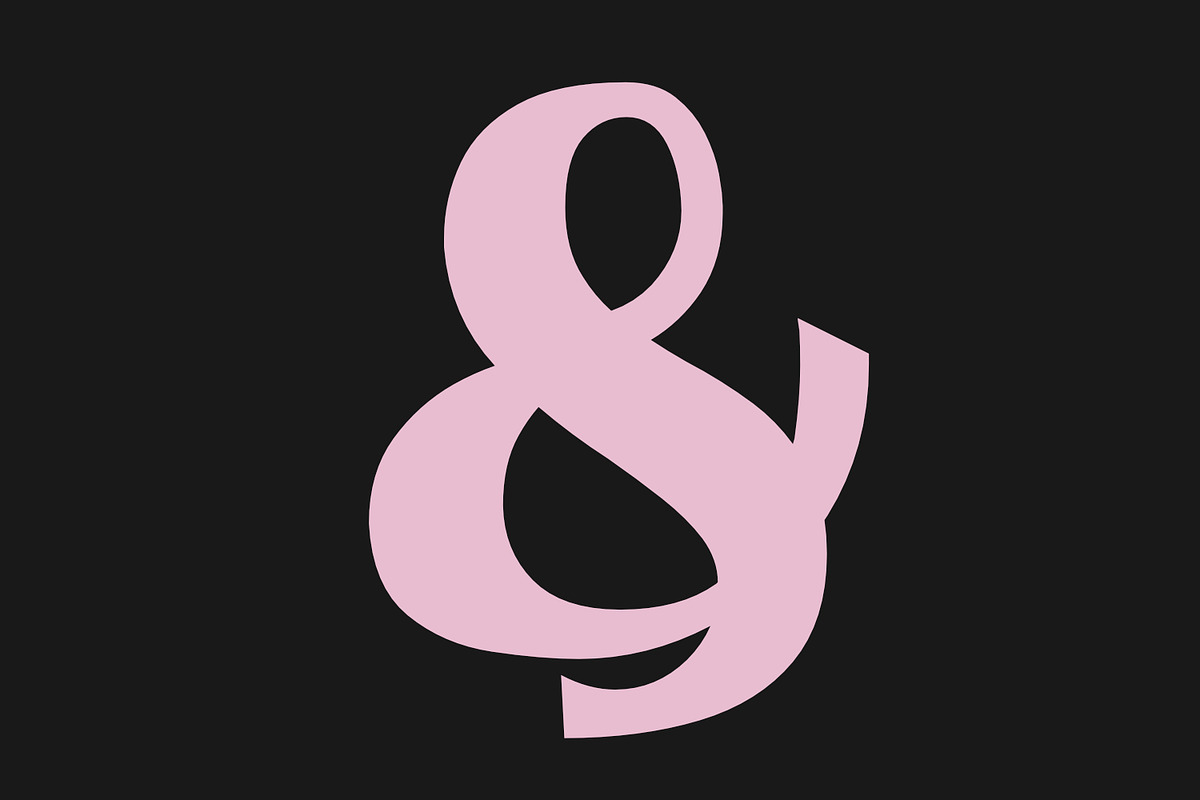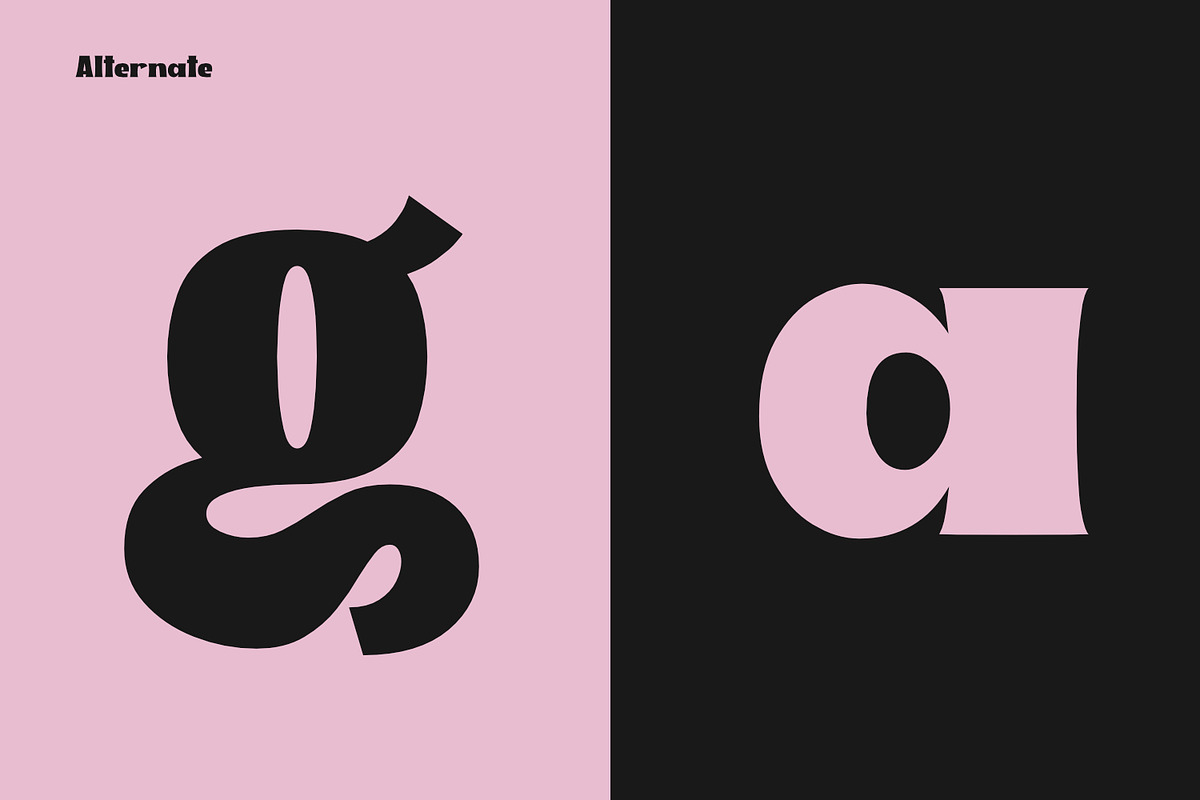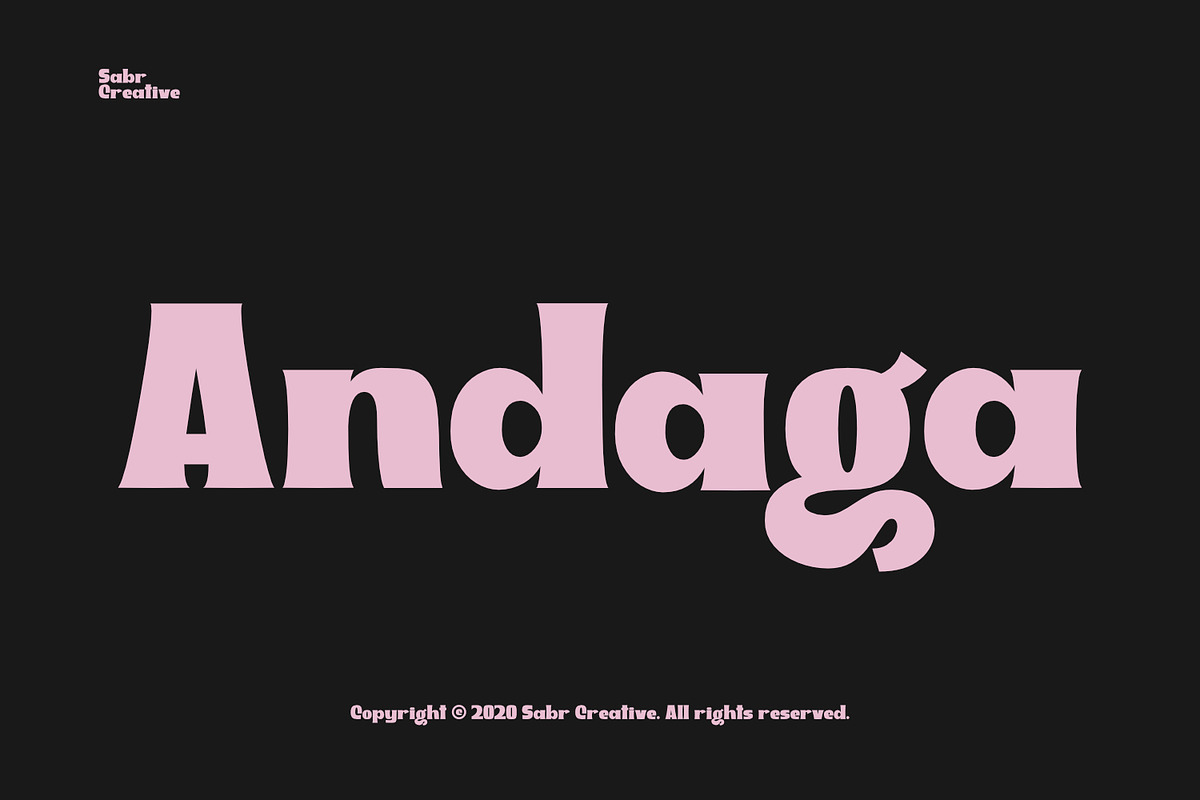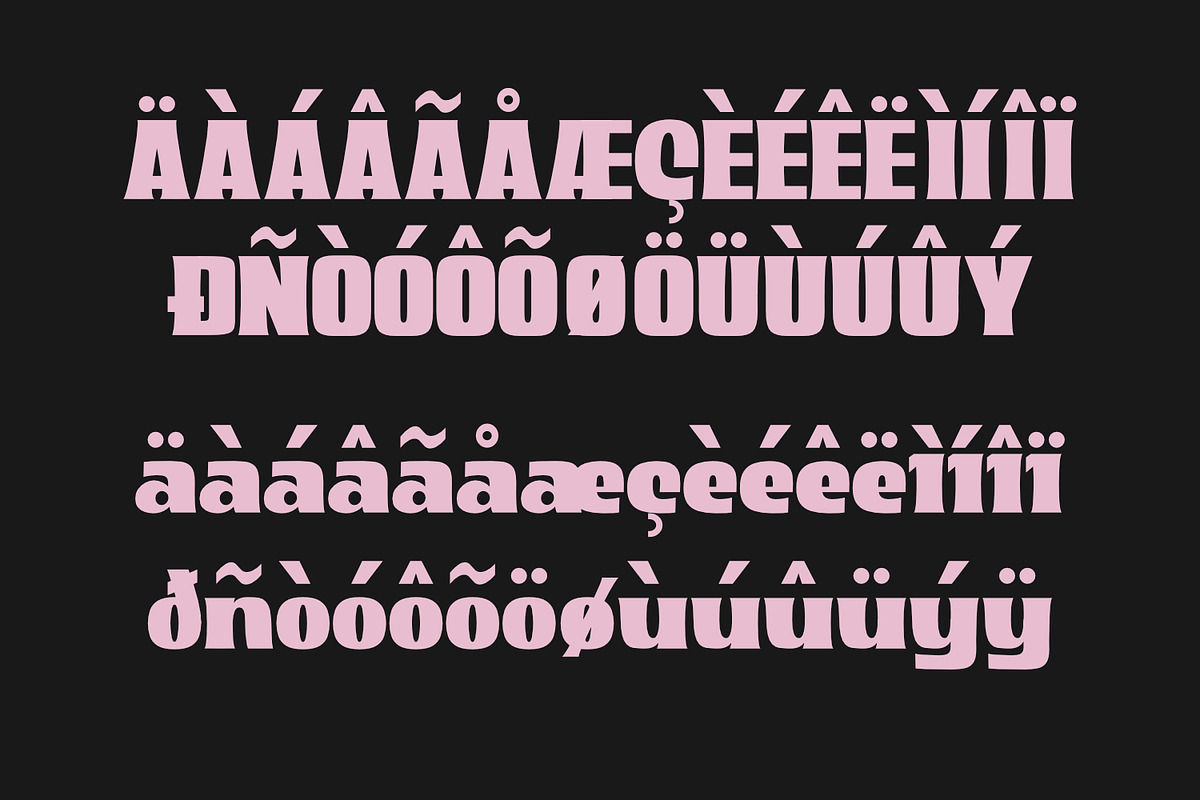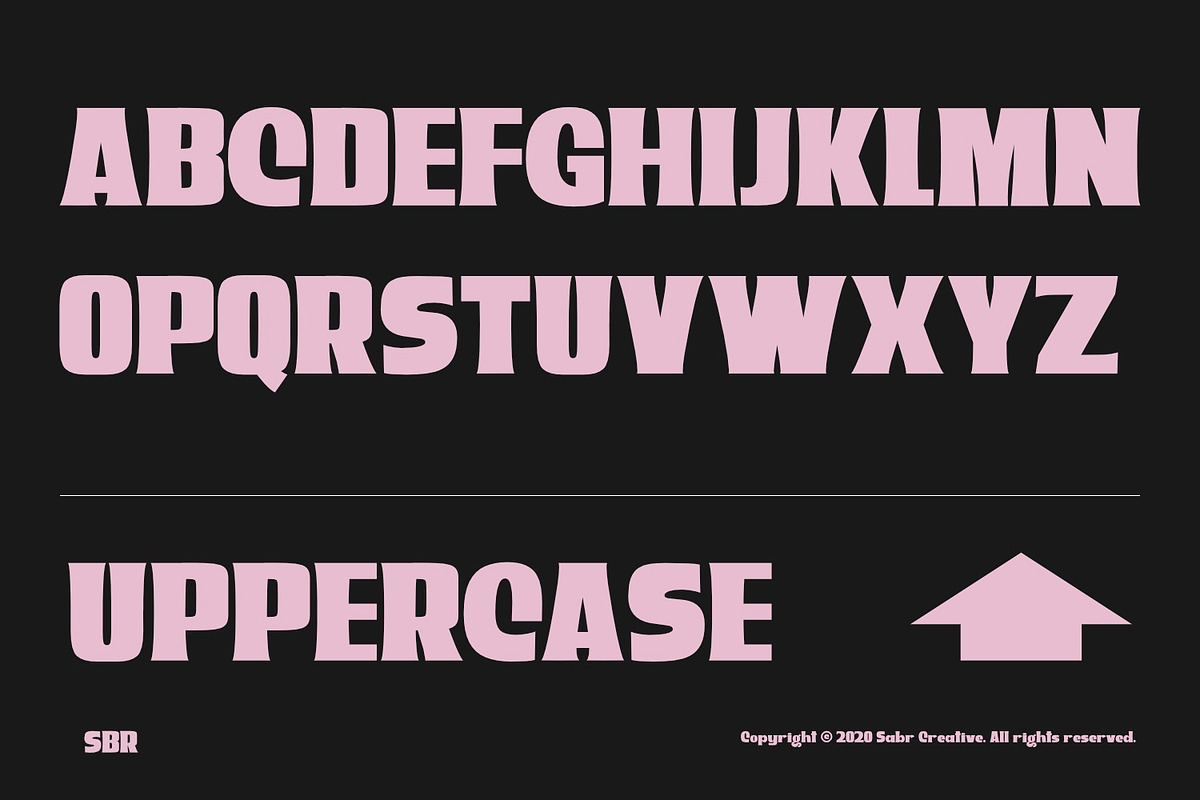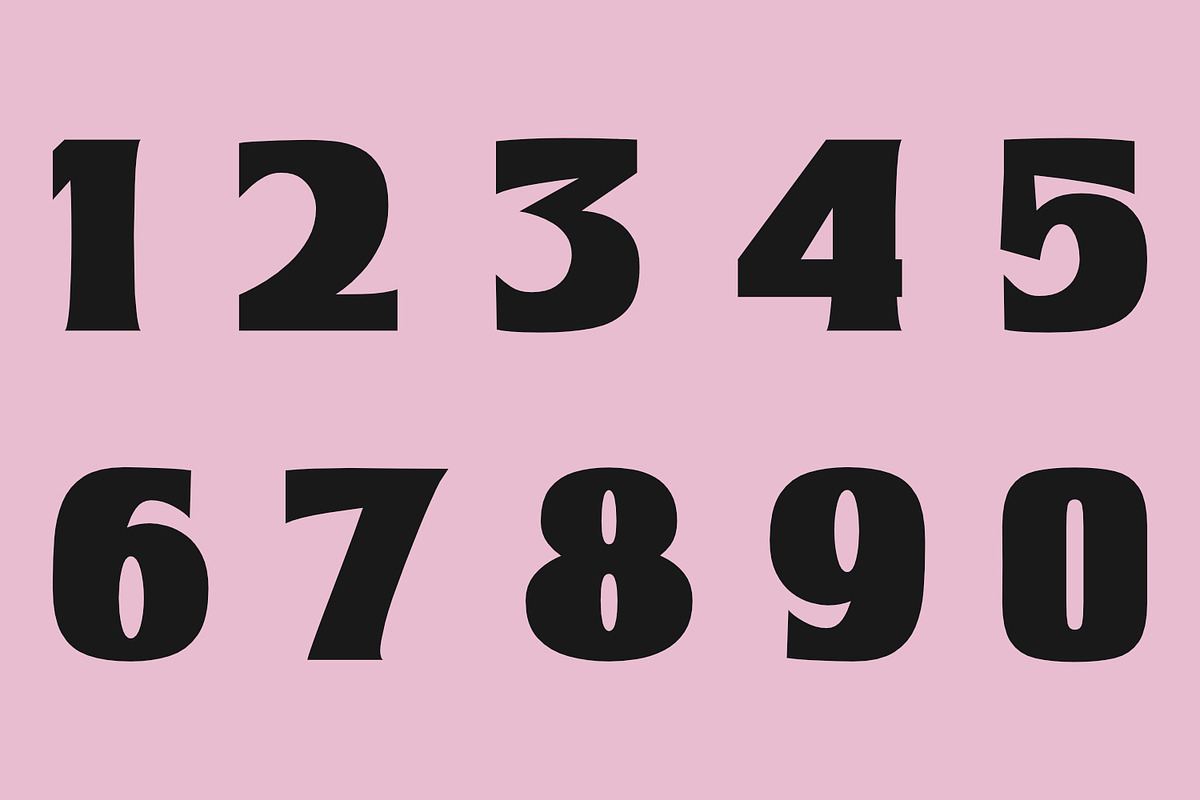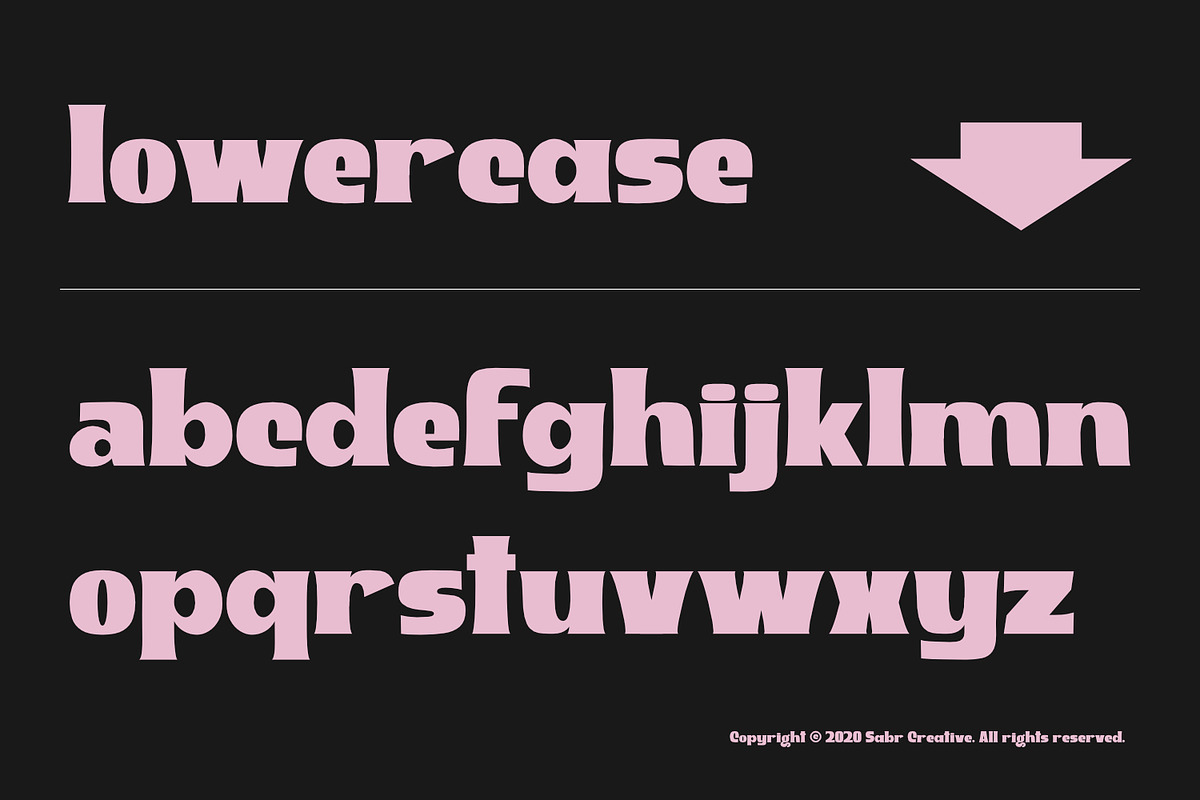
Andaga
Andaga is the newest font from Sabr Creative with a bold, strong, bold style. Strong capital and lowercase letters that work well together and open effectively in a variety of applications.
With its strong, high contrast character, Andaga is perfect as a hard-working text and display font for branding, advertising, packaging, headlines, magazines, websites, logo design and more.